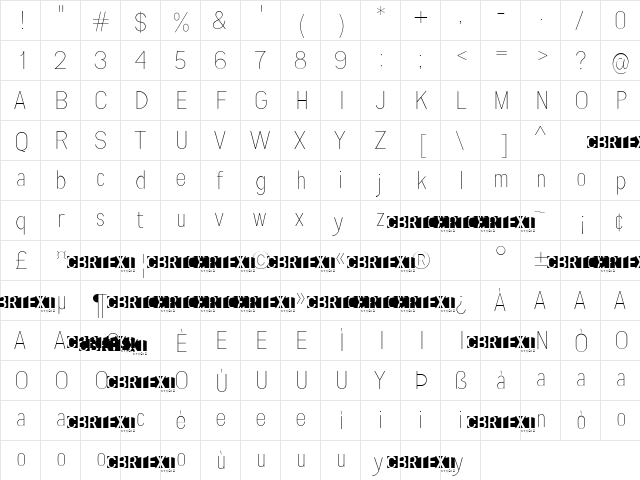
Engula Thin
Design Context for Engula Typeface
Engula is a composed and adaptable typeface that performs quietly and consistently across a wide range of design contexts. Its slender proportions lend an understated elegance to any composition.
Pro Tip: Pair Engula with a font of contrasting weight or personality to build a more expressive typographic hierarchy.